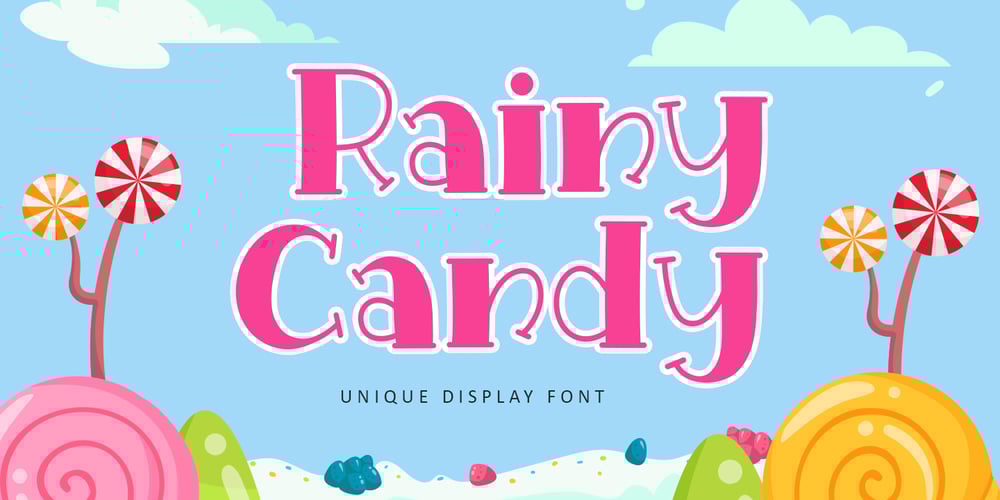
Rainy Candy Font Family was designed by Bayu Suwirya and published by Illushvara. Rainy Candy contains 1 styles and family package options. Hello,We are so excited to announce our new fonts “Rainy Candy” is unique display font. Use it to make your ideas even more realistic like a kids, sweet packaging, merchandise and create spectacular the Christmas designs!Features : Uppercase and lowercase Numbers Symbols Multilingual Accent What you get :Rainy Candy. OTFIf you have any question, don’t hesitate to contact me. Happy Designing !!!Thank You,Bayu Suwirya